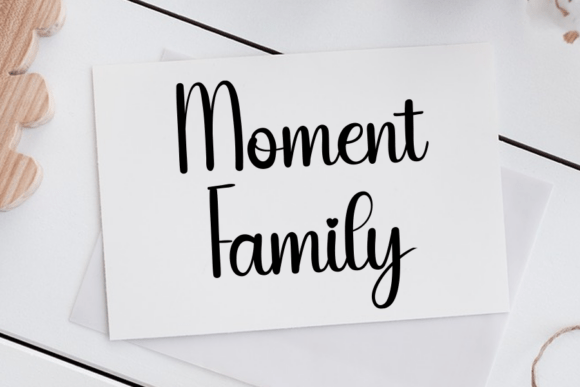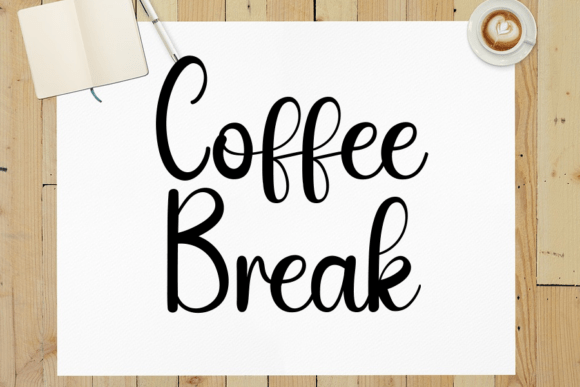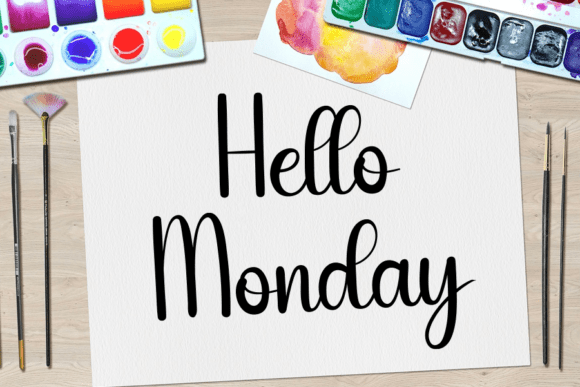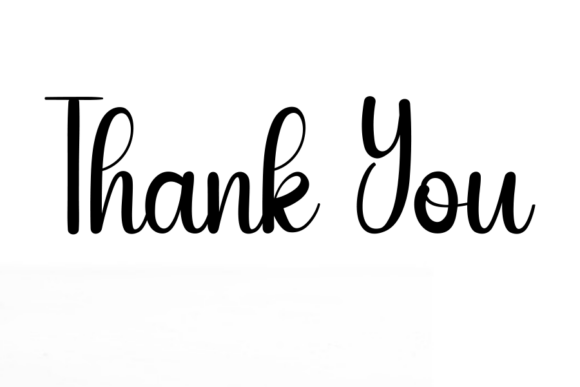
Introducing Blanket Font: The Simple Handwritten Font for a Natural Touch
Are you looking for a font that can add a simple and natural feel to your next project? Look no further than Blanket Font! This versatile handwritten font is perfect for a wide range of applications, from greeting cards to headlines, and is sure to become a staple in your design toolkit.
What is Blanket Font?
Blanket Font is a beautifully crafted handwritten font that exudes a sense of simplicity and elegance. Its smooth, flowing lines and rounded edges give it a friendly and approachable feel, making it perfect for designs that require a personal touch.
Key Features of Blanket Font
- Simple and Handwritten: Blanket Font is a handwritten font that boasts a simple and effortless design. Its clean lines and minimal ornamentation make it easy to read and versatile enough to use in a variety of contexts.
- Versatile: Whether you’re designing a greeting card, a headline, or a full-page layout, Blanket Font is the perfect choice. Its flexibility and wide range of applications make it an excellent addition to any designer’s toolkit.
- Natural Feel: Blanket Font has a distinctly natural feel that sets it apart from more formal fonts. Its rounded edges and flowing lines give it a friendly, approachable vibe that’s perfect for designs that require a personal touch.
Uses for Blanket Font
So, what can you use Blanket Font for? The possibilities are endless! Here are just a few ideas to get you started:
- Greeting Cards: Add a personal touch to your greeting cards with Blanket Font. Its simple, handwritten design makes it perfect for birthdays, holidays, and other special occasions.
- Headlines: Use Blanket Font to add a touch of elegance to your headlines. Its clean lines and simple design make it easy to read and perfect for titles, headings, and other typographic elements.
- Branding: Blanket Font is also perfect for branding and packaging design. Its natural feel and simple design make it a great choice for companies looking to establish a friendly, approachable brand identity.
- DIY Projects: If you’re a crafter or DIY enthusiast, Blanket Font is a great choice for your next project. Use it to add a personal touch to your handmade cards, gift tags, and other crafts.
Why Choose Blanket Font?
So, why should you choose Blanket Font for your next project? Here are just a few reasons:
- Easy to Read: Blanket Font is incredibly easy to read, making it perfect for designs that require a clear and concise message.
- Versatile: As mentioned earlier, Blanket Font is incredibly versatile and can be used in a wide range of applications.
- Unique: Blanket Font has a distinctly unique feel that sets it apart from more formal fonts. Its natural, handwritten design makes it perfect for designs that require a personal touch.
In conclusion, Blanket Font is a simple yet versatile handwritten font that’s perfect for a wide range of applications. Its natural feel, clean lines, and simple design make it a great choice for designers and crafters looking to add a personal touch to their next project. So why not give Blanket Font a try? With its ease of use, flexibility, and unique design, it’s sure to become a staple in your design toolkit.